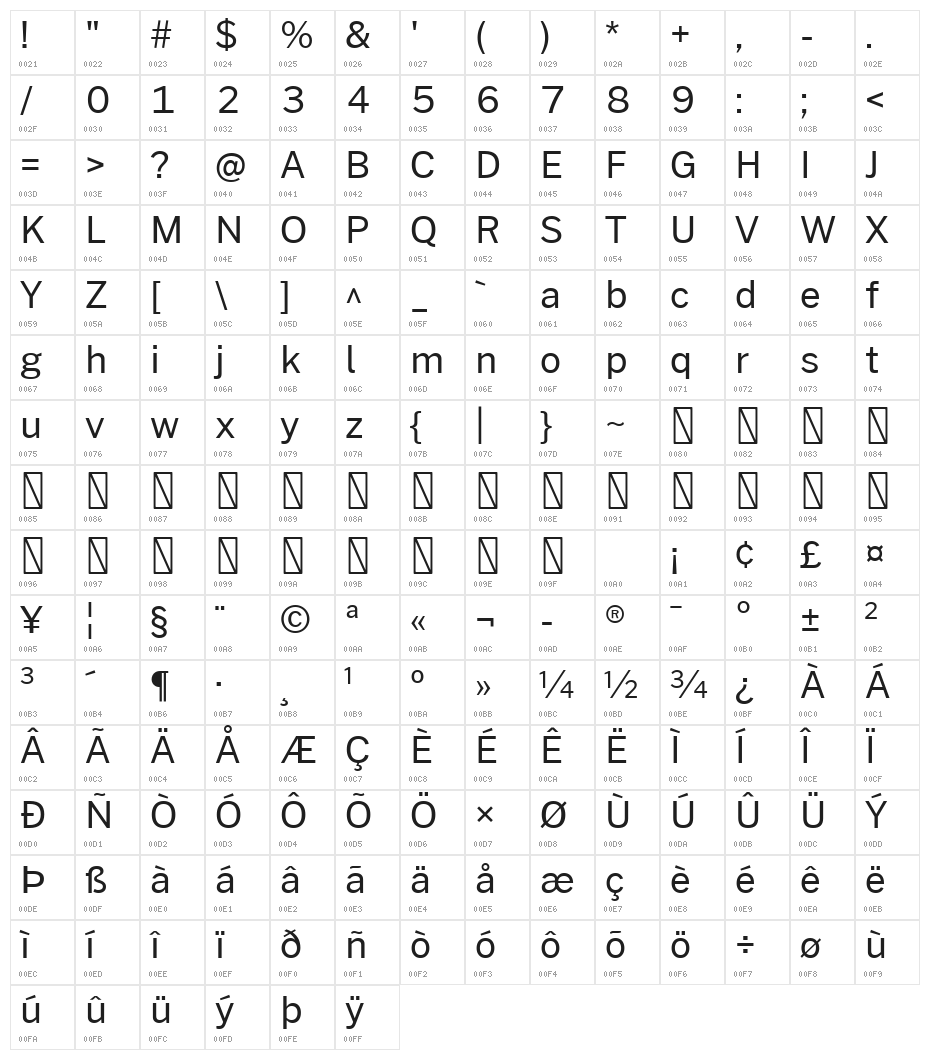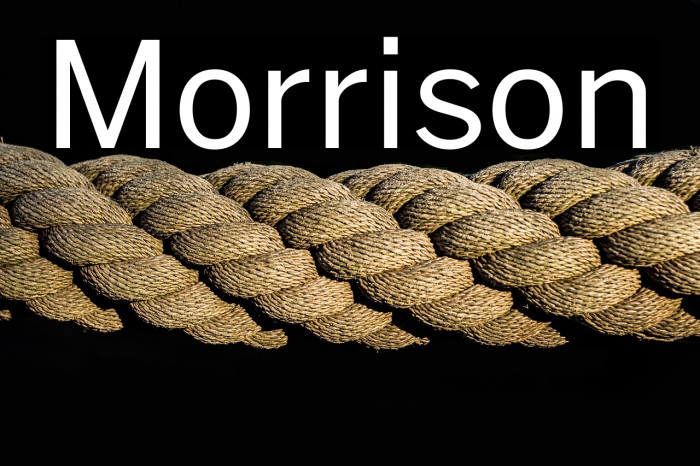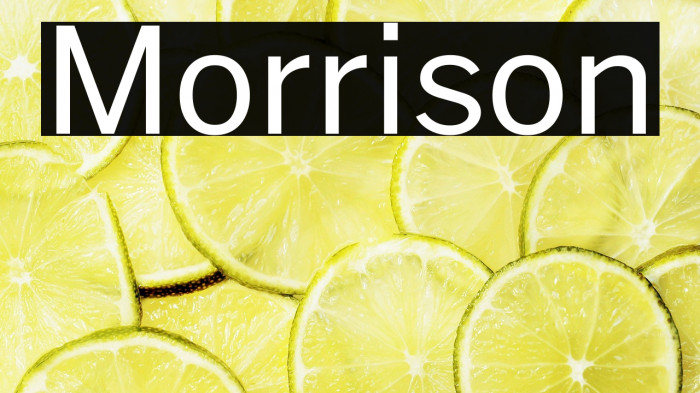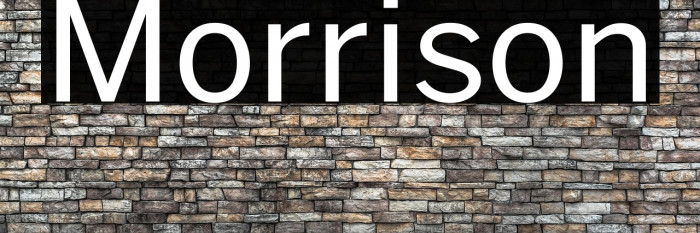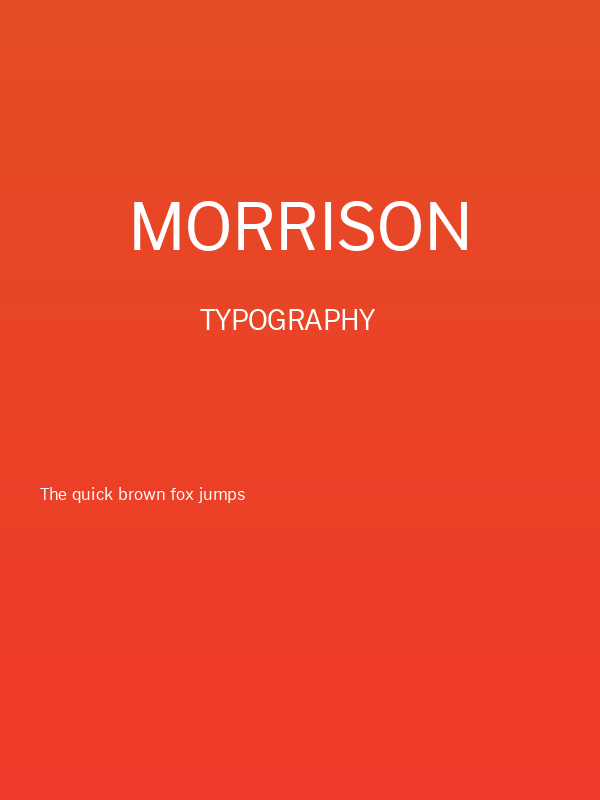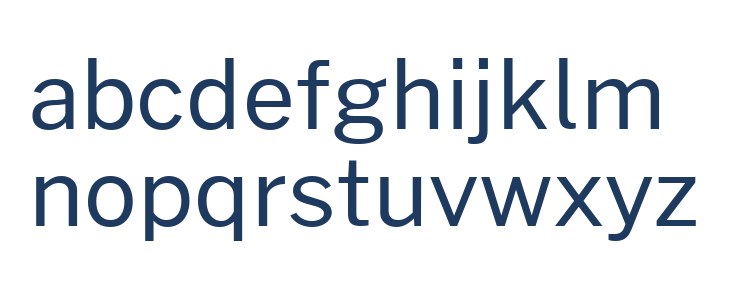
Morrison Font
Morrison Description
This font features a clean and modern sans-serif design, characterized by its simplicity and readability. The characters are evenly spaced with a consistent stroke width, providing a balanced and harmonious appearance. The uppercase letters are bold and assertive, while the lowercase letters maintain a friendly and approachable look. The numerals are clear and distinct, making them easy to read. Special characters are well-defined, adding to the font's versatility. Overall, this font is suitable for a wide range of applications, from digital interfaces to print media.
| Use Case | Headlines, Body text, Logos |
| Proposed Projects | Ideal for web design, corporate branding, user interfaces, and editorial content. |